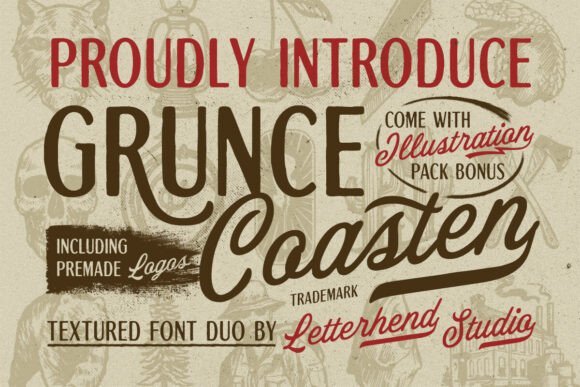
As a designer, have you ever stared at a blank page, searching for the perfect font to bring your vision to life? It’s a moment we’ve all been in – the moment when the right typeface can make all the difference between a good design and a great one. And that’s exactly what I experienced when I discovered the Grunce Coasten Font duo.
This charming vintage font pair, consisting of a script and a sans serif, exudes a classic look and feel that’s simply irresistible. But what really sets Grunce Coasten apart is its versatility – perfect for logos, headlines, signage, and so much more. With its bonus illustration, this font is a treasure trove for designers looking to add a touch of elegance and sophistication to their work. Whether you’re creating invitations, labels, or advertisements, Grunce Coasten Font is a valuable addition to any designer’s toolkit.
- Unique Characteristics: This font features a unique blend of modern and traditional elements, with distinctive letterforms and subtle texture, adding a touch of sophistication to any design.
Grunce Coasten Font Review
First impressions of Grunce Coasten Font were quite promising ✨. The font’s unique blend of modern and vintage elements caught my eye. The rounded edges and subtle curves give it a friendly, approachable feel that’s perfect for branding and editorial content.
The font’s versatility is another strong point ✨. Grunce Coasten works well in both small and large font sizes, making it suitable for a wide range of applications, from business cards to billboards.
However, there are some limitations to consider ⚠️. The font’s legibility can be affected by the surrounding text and layout. In certain situations, the font’s letterforms can become cluttered and difficult to read.
Additionally, the font’s character set is somewhat limited ⚠️. Some special characters and accents are not available, which may be a concern for designers who require a high level of customization.
Overall, Grunce Coasten Font is a solid choice for designers looking for a unique and versatile font. While it may have some limitations, its strengths make it a worthwhile consideration for a wide range of projects.
- Unique blend of modern and vintage elements
- Works well in both small and large font sizes
- Perfect for branding and editorial content
- Legibility can be affected by surrounding text and layout
- Character set is somewhat limited